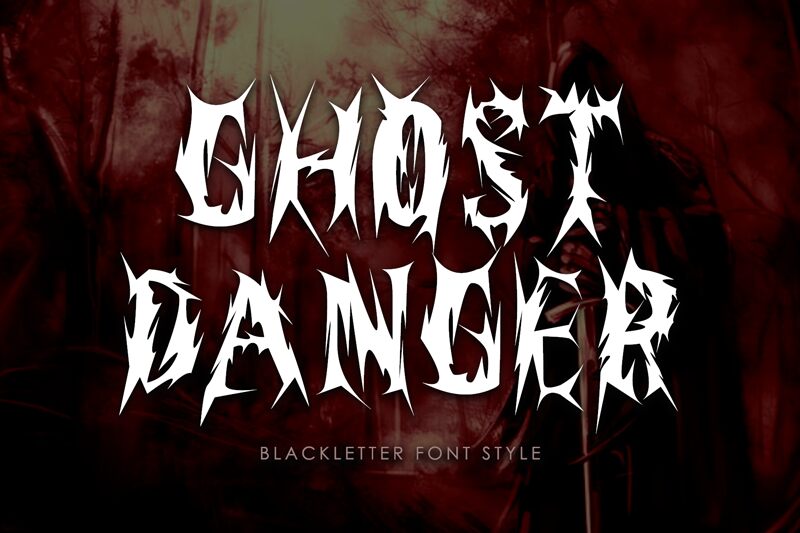
Ghost Danger font by Yoga Letter is a free horror font with a scary yet readable style. The font was built rugged, aggressive, goth-inspired, and accurate in every detail thanks to its professional creators. It features both uppercase and lowercase characters available making it slightly dramatic and intense with spiky dangerous edges.
Ghost Danger is suitable for names and titles mostly, so use it for logo designs, movie posters, book covers, stationery prints, advertising, packaging, branding, and tattoos to name a few.